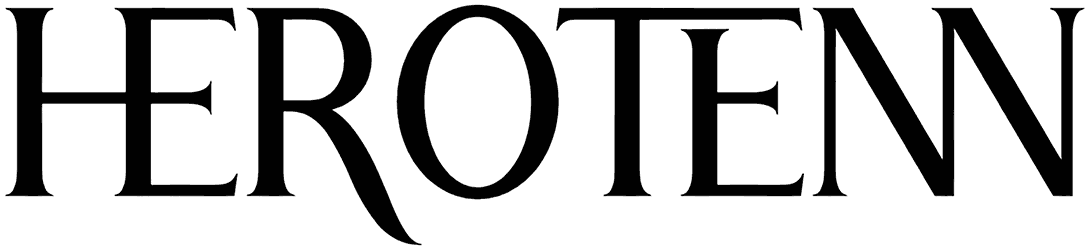
Herotenn Font
Herotenn represents power and trust and brings such spirit to your designs. This serif font with a powerful and justified impression can be defined as a symbol of professionalism, while its outward appearance would admirably serve for assorted projects.
This A-Z artwork has the potential for accentuating any scheme, such as magazine covers, documents, and headers that call for a prestige theme. Not a moment too soon, make fast access to our inventory of striking assets to depict your personality.